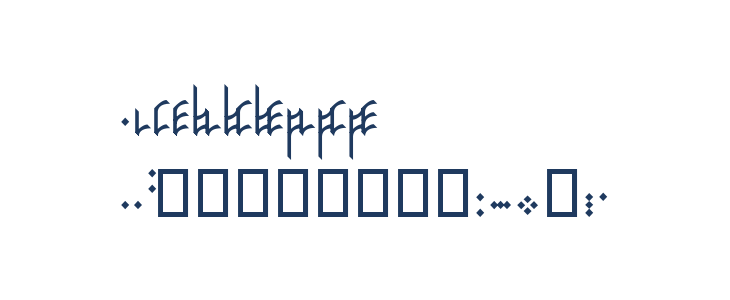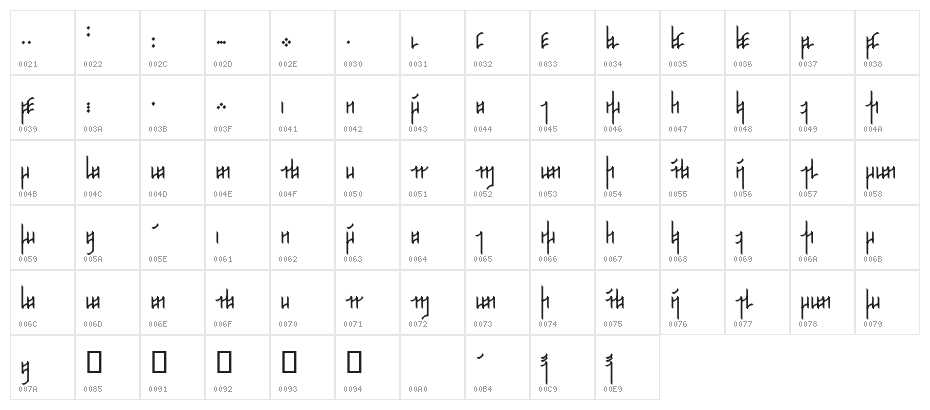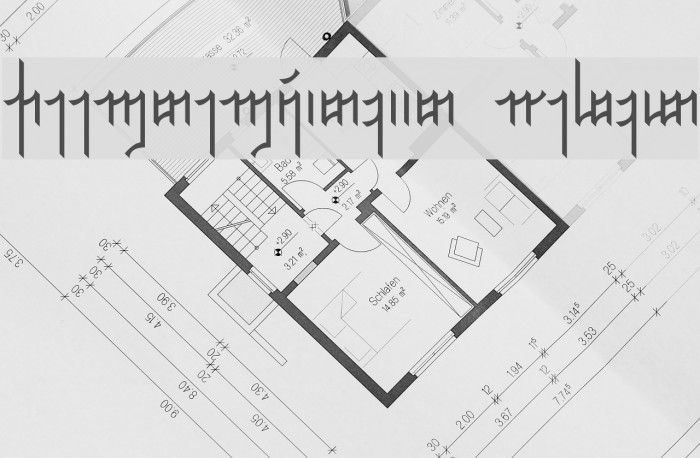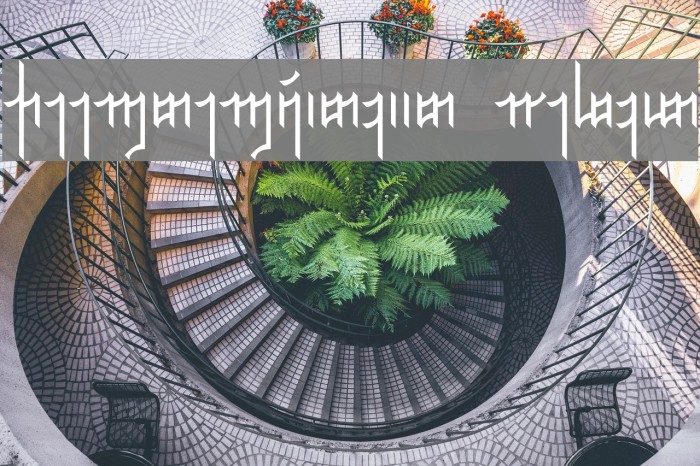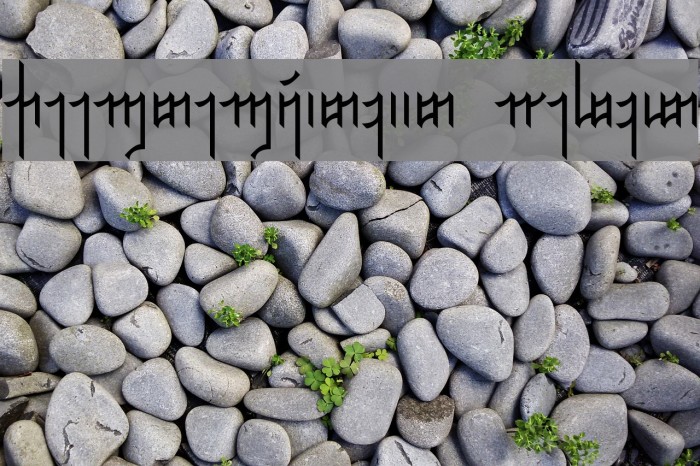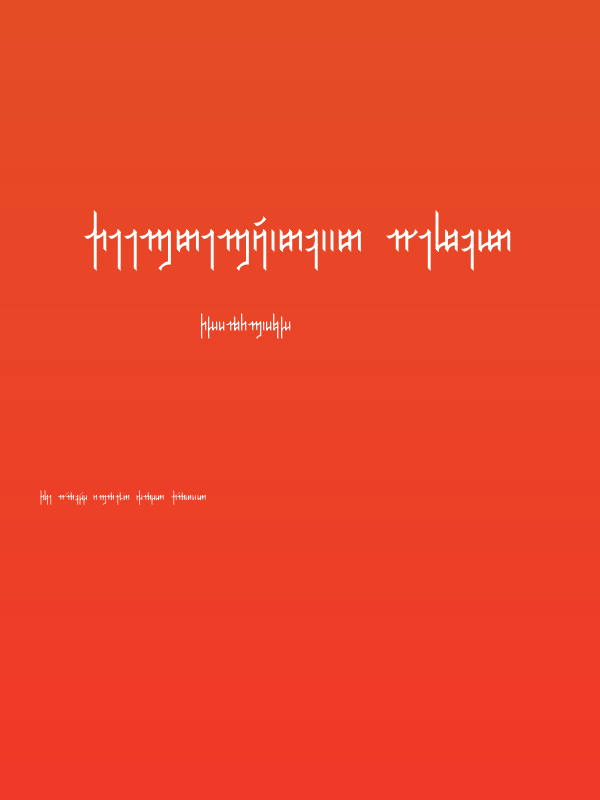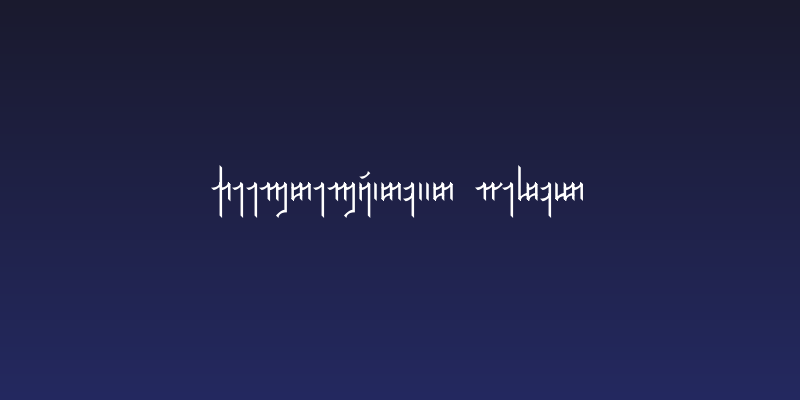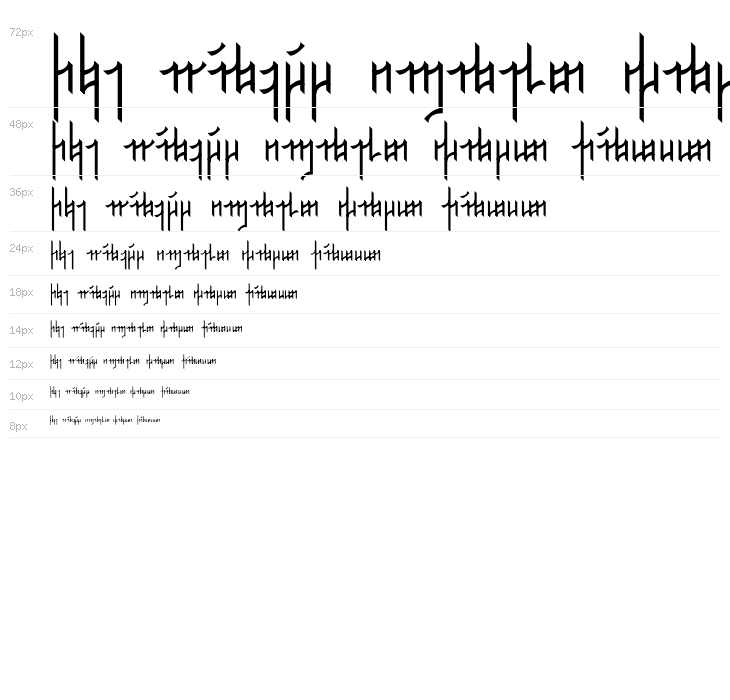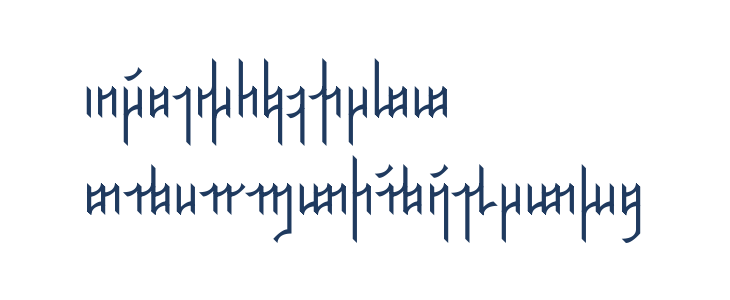
Jeernervaniaan Qelis Font
Jeernervaniaan Qelis Description
This font features a highly decorative and intricate design, reminiscent of ancient scripts or fantasy languages. The characters are elongated with sharp, angular strokes, giving it a mystical and enigmatic appearance. The vertical emphasis and unique glyph shapes suggest a design that is both artistic and unconventional. It lacks traditional readability, making it more suitable for decorative purposes rather than body text. The font's distinct style evokes a sense of mystery and otherworldliness, perfect for projects that aim to capture a fantastical or historical aesthetic.
| Use Case | Logos, Posters, Decorative elements |
| Proposed Projects | Ideal for fantasy book covers, game design, movie posters, or any project requiring a mystical or ancient aesthetic. |